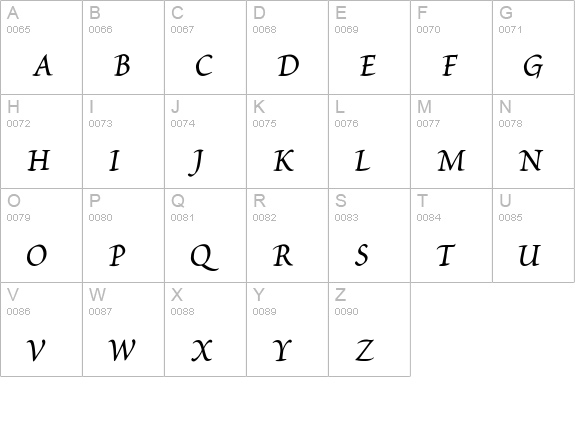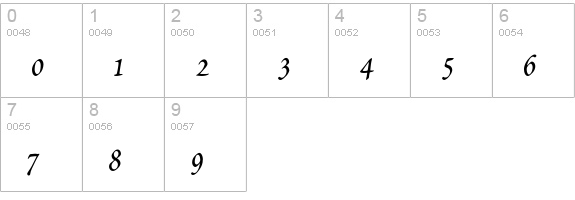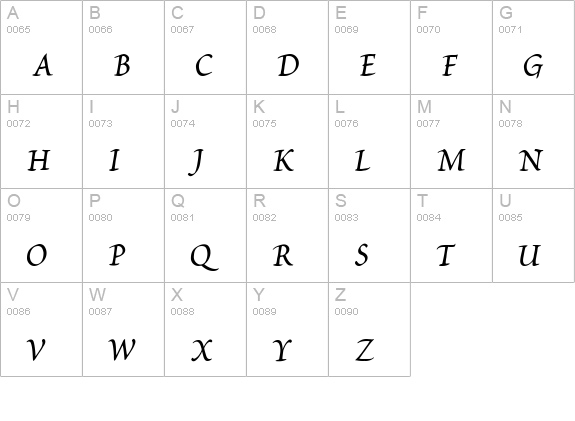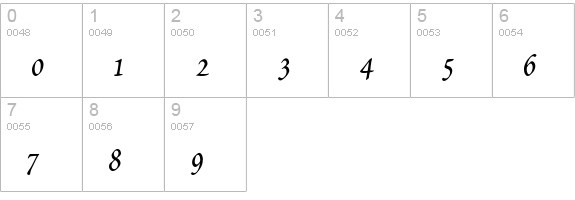
Petitscript-Italic is a distinctive, italic variant in the Petitscript typeface family \xE2\x80\x94 well suited to design and typography projects.
Petitscript-Italic is a stunning and elegant font that effortlessly combines sophistication with playfulness. Its unique handwriting style adds a touch of personality to any design project, making it perfect for invitations, logos, and branding materials. With its slanted and italicized letters, Petitscript-Italic exudes a sense of movement and dynamism, creating a visually appealing and captivating experience for the reader. Each character is carefully crafted with intricate details, showcasing the meticulous attention to detail that went into creating this remarkable font. One of the standout features of Petitscript-Italic is its versatility. Whether used for formal or informal occasions, this font adapts seamlessly, effortlessly enhancing the overall aesthetic. Its fluid strokes and graceful curves exude a sense of confidence and sophistication, making it an excellent choice for any design project. And the best part? Petitscript-Italic is available for FREE download at FontsMarket.com. Yes, you read that right! This incredible font can be yours without spending a penny. So why wait? Head over to FontsMarket.com and elevate your designs with Petitscript-Italic today!